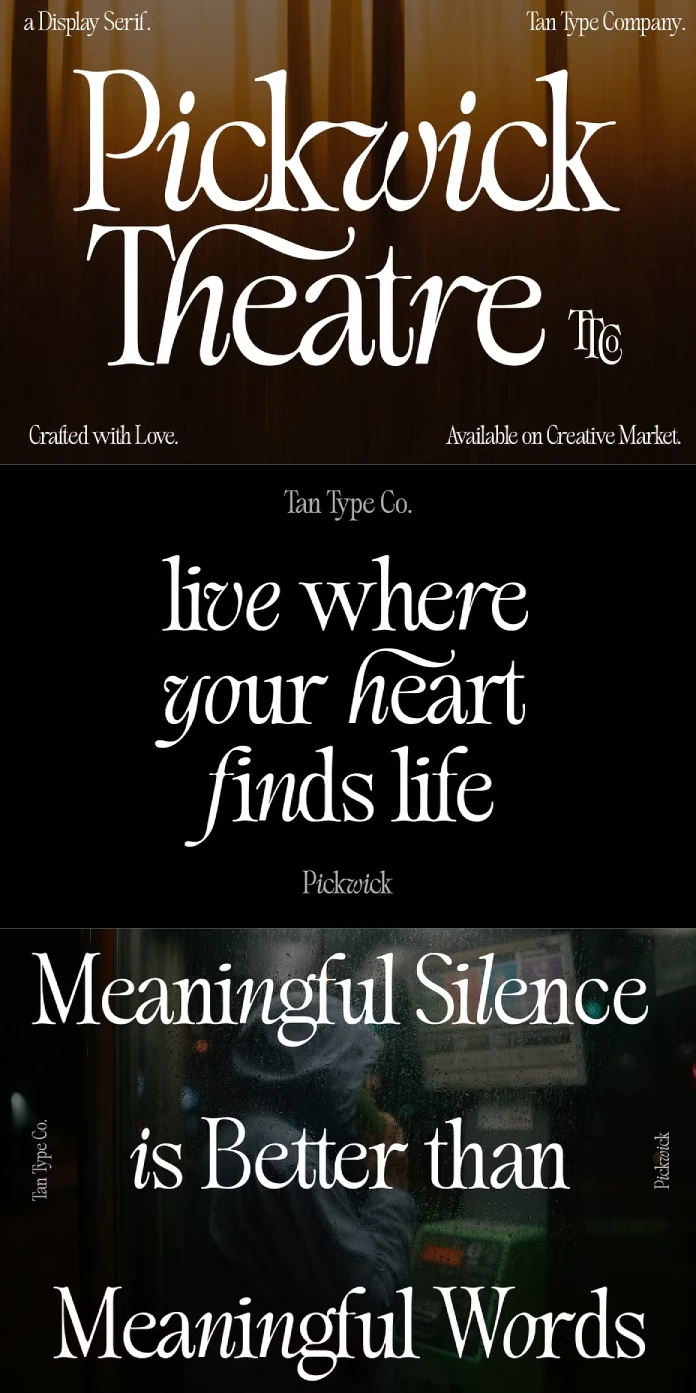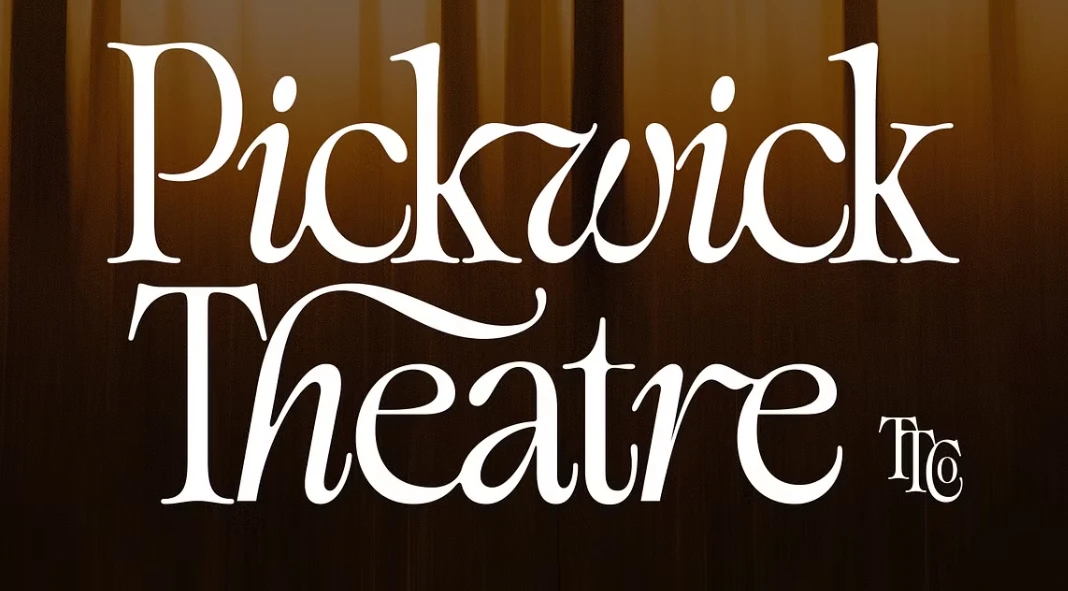
TAN Pickwick: Is This the Font That Will Define Your Next Design?
Ever feel like you’re searching for that perfect font? The one that speaks volumes without screaming? The one that’s both timeless and totally now? You know, a font that just makes your design sing? Well, stop the search! Let me introduce you to TAN Pickwick, a font that might just be the answer to all your typographic prayers. Have you ever wondered what a font designed for both prestige and modern look is like?
This isn’t just another font review. We’re going to explore why TAN Pickwick from TanType is making waves in the design world. We’ll uncover what makes it so special. We’ll also explore how you can use it to elevate your own projects. Get ready to be inspired!
What Makes TAN Pickwick So Special?
TAN Pickwick is an elegant serif font. It cleverly walks the line between classic and contemporary. Think graceful, elongated serifs meeting playful, modern touches. The designers at TanType have truly struck a beautiful balance.
What does this mean for you? It means you get a font that exudes sophistication. But it doesn’t feel stuffy or outdated. It’s fresh. It’s unique. And it’s ready to make your designs pop.
A Closer Look at the Design Elements of TAN Pickwick
The beauty of TAN Pickwick lies in its details. The gracefully elongated serifs give it a traditional feel. But then, you notice the subtle modern angularities and flourishes. These add a touch of unexpected charm. It’s this contrast that makes it so captivating.
Think about the impact that this font could have on your next branding project. The elegant serifs convey a sense of trustworthiness and reliability. The modern flourishes add a touch of personality and creativity. It’s a winning combination!
Versatility is Key: Where Can You Use TAN Pickwick?
Where can’t you use it? TAN Pickwick is incredibly versatile. It’s perfect for branding, editorial design, invitations, and so much more. It lends itself well to projects that require a sense of luxury and individuality.
Imagine using it for a high-end fashion magazine. Picture it gracing the cover of a sophisticated novel. Envision it on elegant wedding invitations. The possibilities are endless. It truly is a font that adapts to your creative vision.
Why Should You Choose TAN Pickwick Over Other Serif Fonts?
With so many serif fonts out there, why choose TAN Pickwick? Well, it’s the perfect blend of classic and contemporary. Many fonts lean too heavily in one direction or the other. TAN Pickwick finds that sweet spot.
Furthermore, its unique details set it apart. Those subtle flourishes and angularities give it personality. It helps your design stand out from the crowd. It’s a font that whispers “sophistication” and “creativity” all at once.
Final Thoughts: Is TAN Pickwick Right for You?
So, is TAN Pickwick the font that will define your next design? Only you can answer that question. But if you’re looking for a font that is elegant, versatile, and utterly captivating, it’s definitely worth considering.
It is a font for when you need that perfect balance between classic and contemporary. A font that’s ready to elevate your projects to the next level. Give TAN Pickwick a try. You might just fall in love.